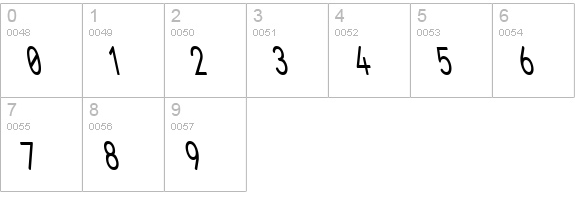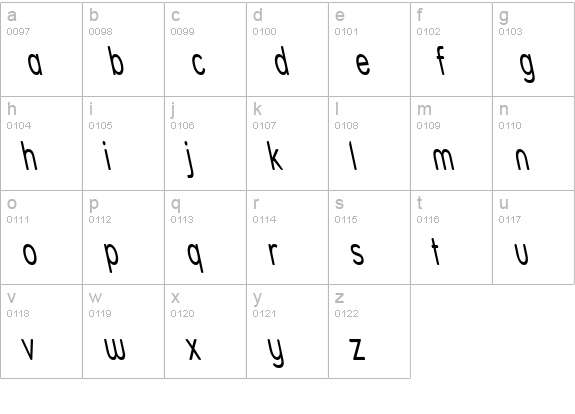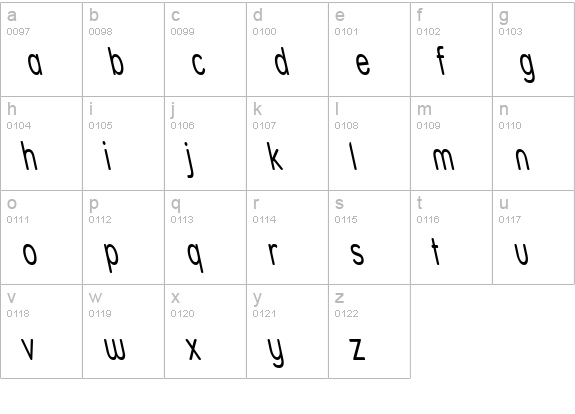
Street - Thin Reverse Italic Font Details
Street - Thin Reverse Italic is a delicate, low-contrast, italic variant in the Street typeface family \xE2\x80\x94 well suited to fashion editorial, minimal branding, and high-contrast display.
Street - Thin Reverse Italic font is a sleek and modern typeface designed to make a bold statement. With its unique reverse italic style, this font adds a touch of sophistication and elegance to any design project. The thin and streamlined letterforms give a contemporary and edgy look, perfect for branding, logos, headlines, and more. And the best part is, Street - Thin Reverse Italic font is available for free download at FontsMarket.com. You can easily access this stylish font and incorporate it into your creative projects without any cost. Don't miss out on the opportunity to enhance your designs with this eye-catching typeface. Download Street - Thin Reverse Italic font today and elevate your visual creations to the next level!